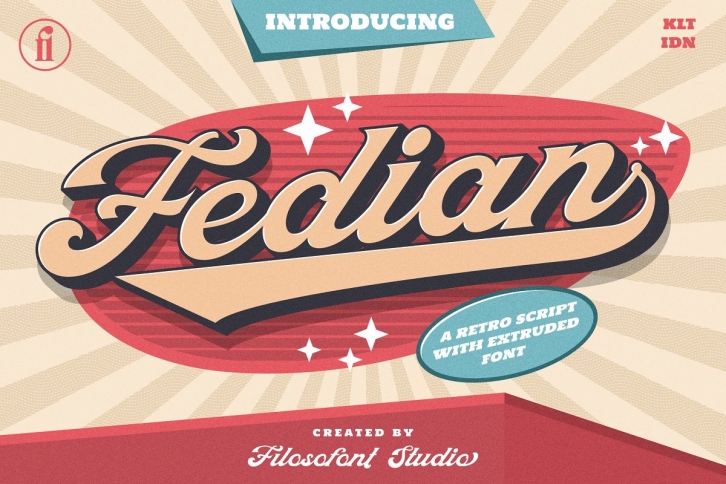
Introducing Fedian Script. A retro bold script font. It was inspired from retro typography and lettering in the 60's and 70's. Fedian Script comes with extra Extruded font version. So you won't need extra effort for create an extrude effect for this font. This mean it will saves your time. This font perfectly made to be applied especially in logo, and the other various formal forms such as invitations, labels, logos, magazines, books, greeting / wedding cards, packaging, fashion, make up, stationery, novels, labels or any type of advertising purpose.
Come with Open type feature with a lot of alternates, its help you to make great lettering. This font is also support multi language.
• Uppercase and Lowercase
• Number and Punctuation
• Multilingual
• Alternates
• Swashes
• PUA Encoded